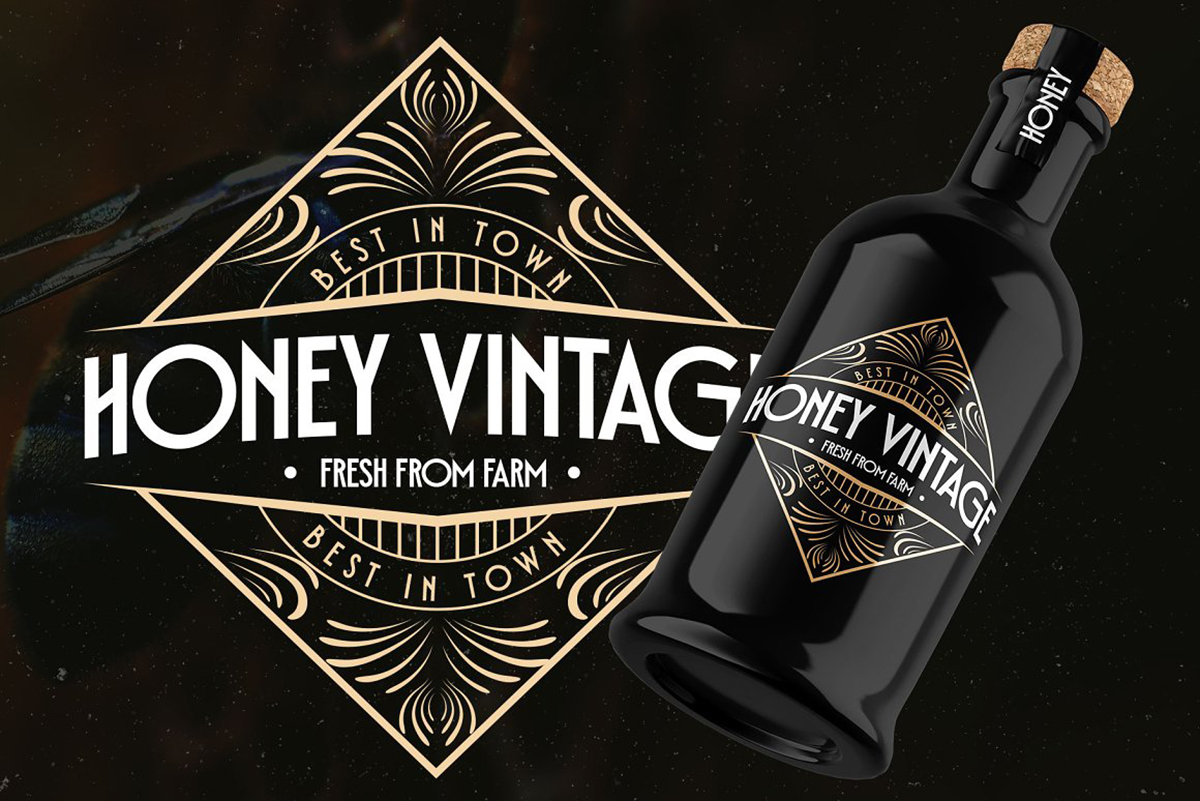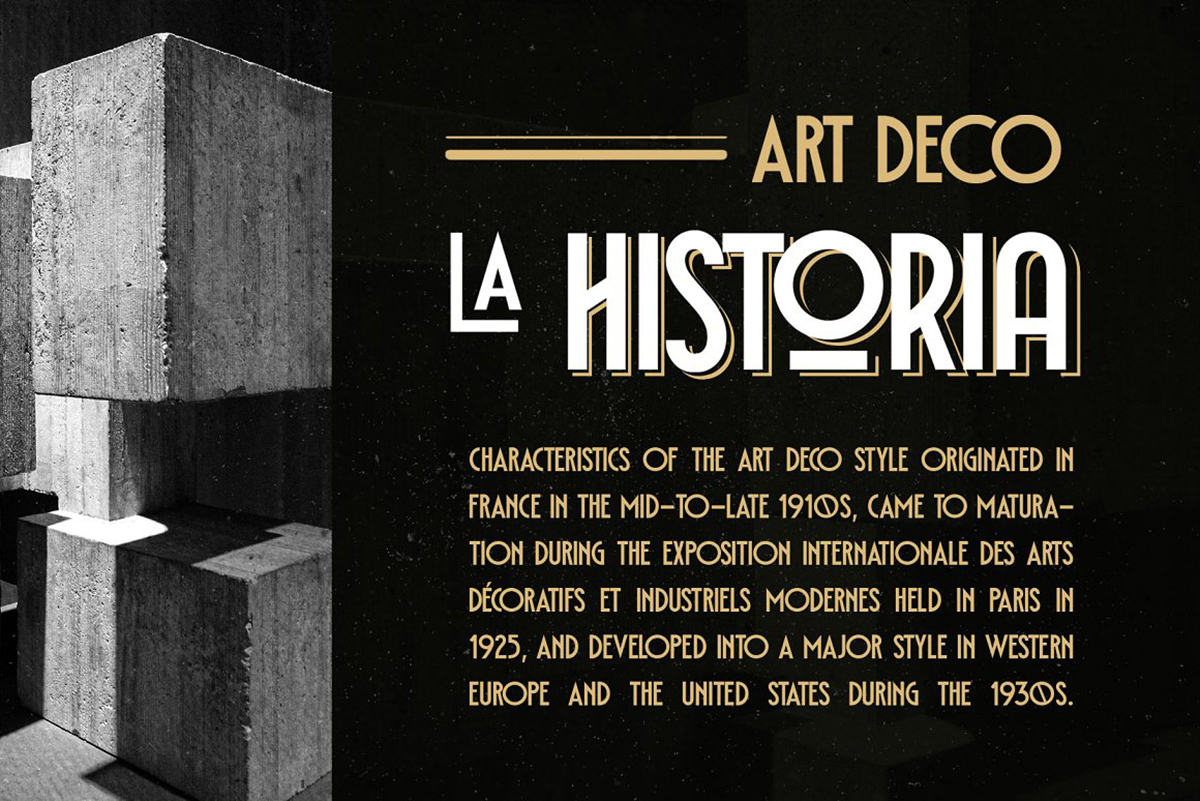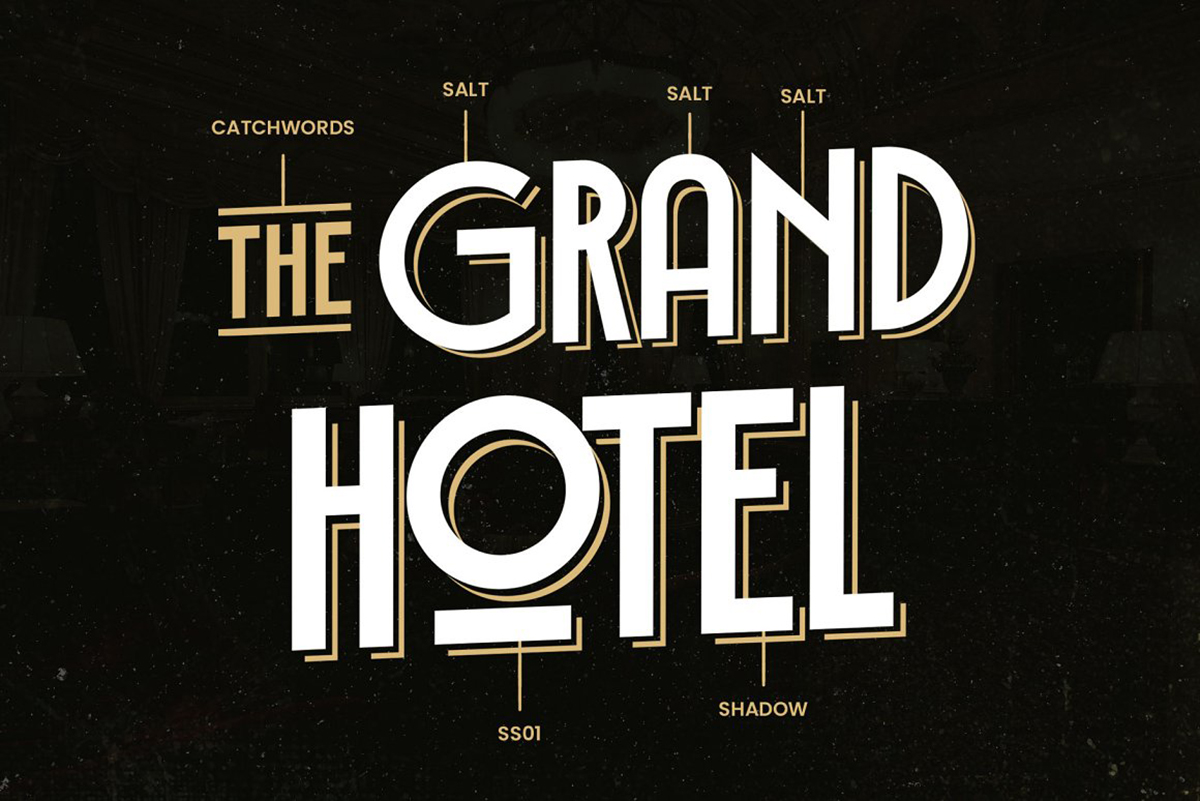
Delauney Free Font
Delauney Free Font, a magnificent sans-serif font, draws inspiration from the opulent Art Deco era of the 1920s. It epitomizes lavish aesthetics, sophistication, and prosperity. This all-caps font is meticulously crafted with geometric precision and bold, clean lines, resulting in a sleek and minimalist appearance. This free typeface was designed by a talented Arterfak Project. If you like it donโ€™t forget to check out the full version.